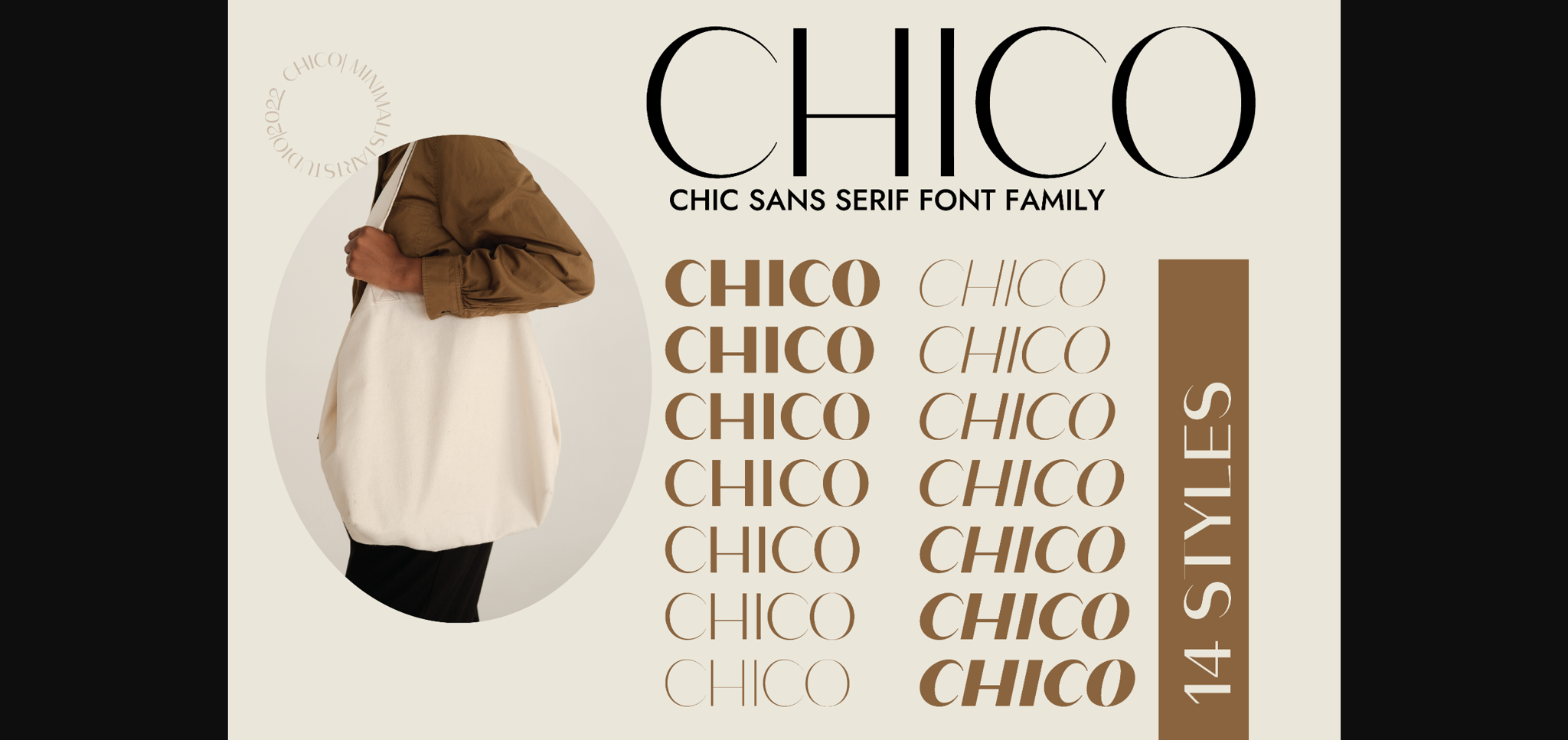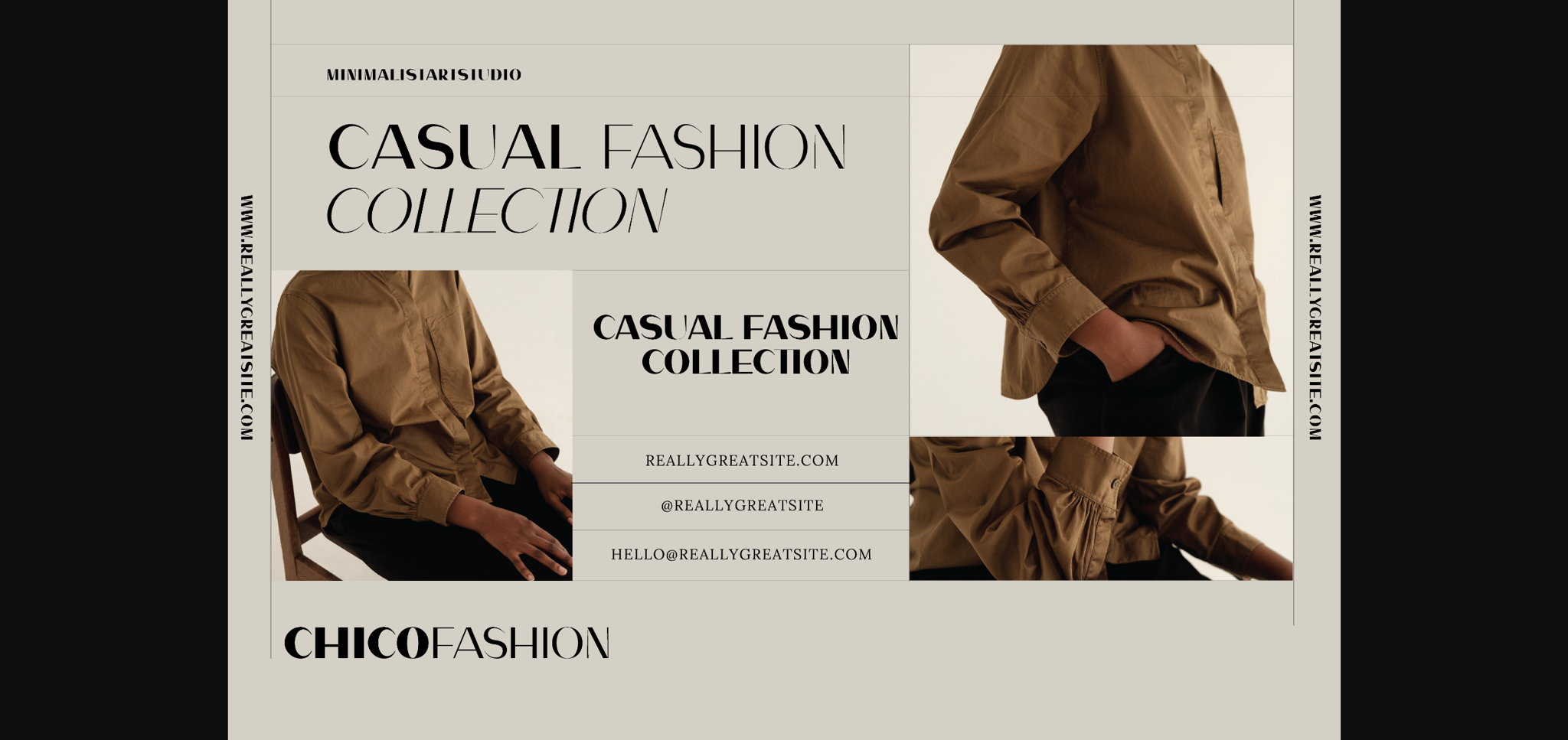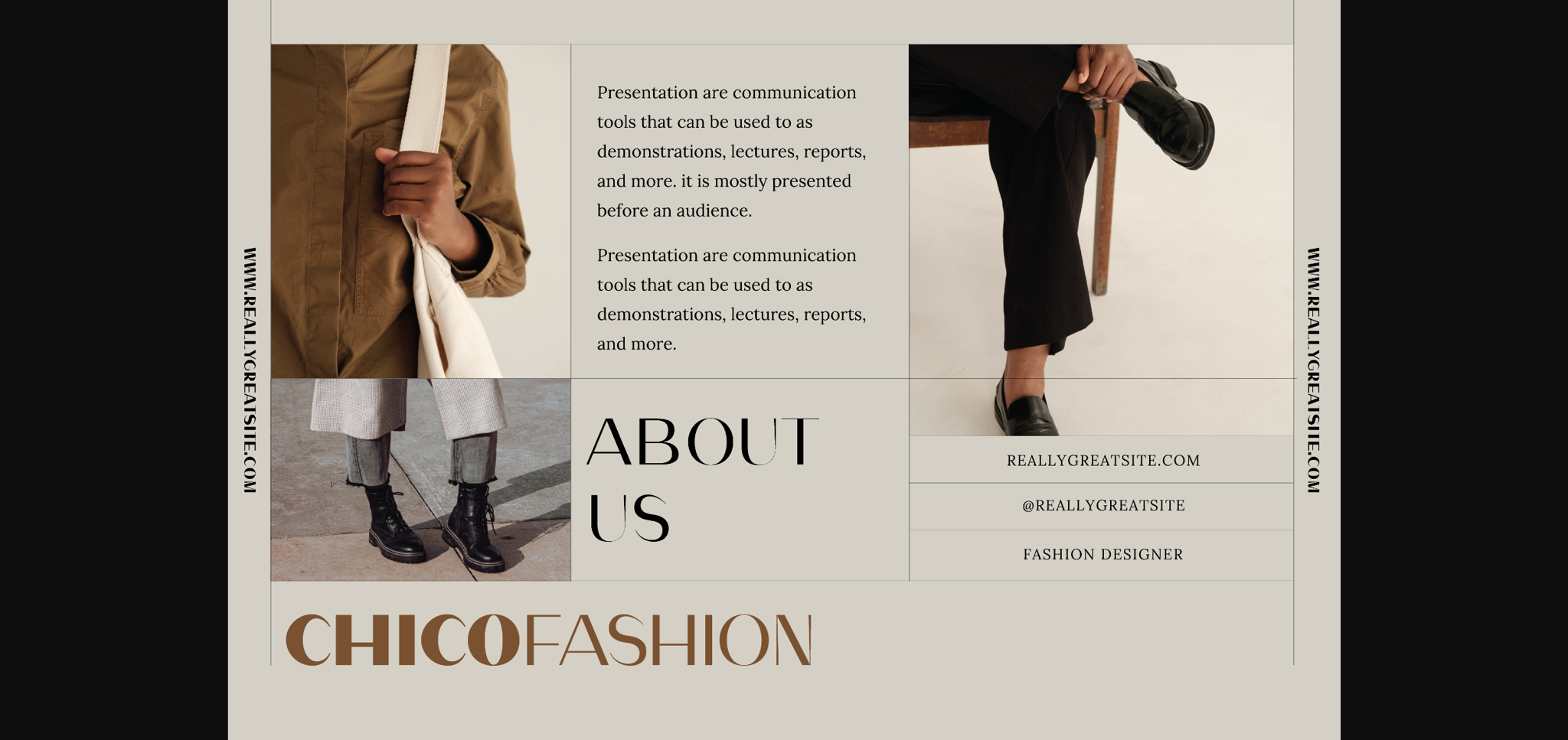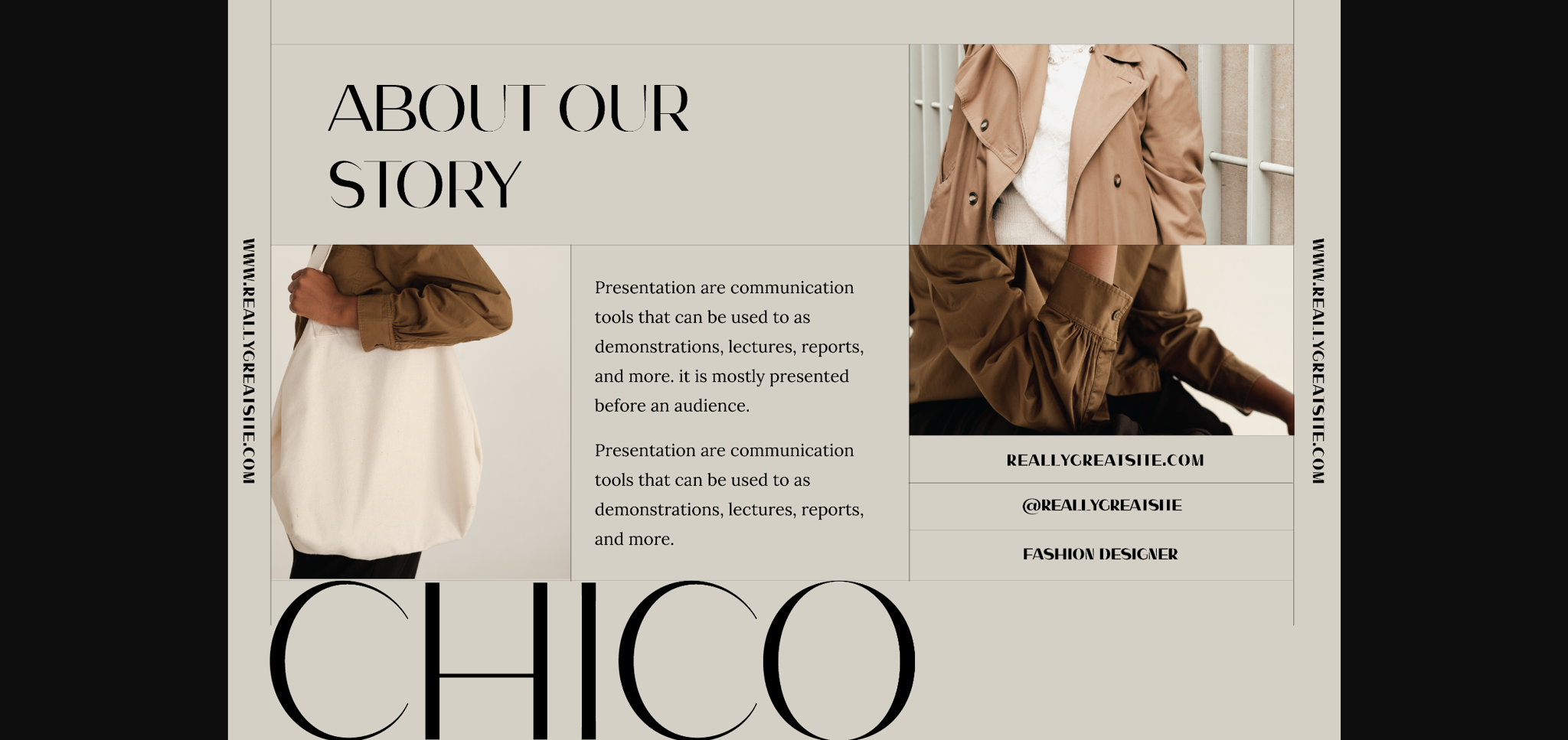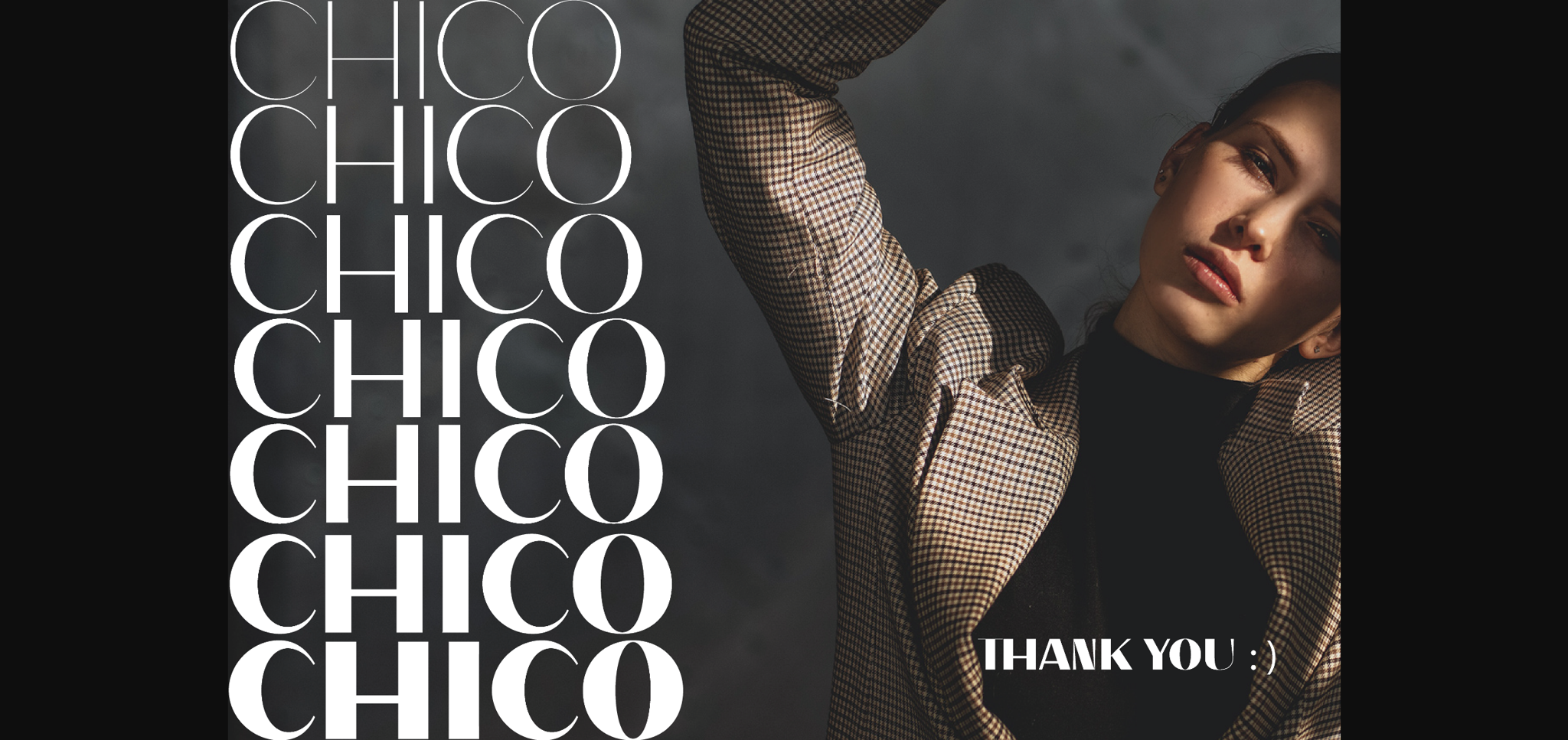
About Chico Font
Chico, as the name suggests is a chic, elegant, and stylish grotesque sans serif font. Whatever the context is, this font family will add great value to your creations. Use it confidently in your creative ideas, and notice how it has the potential to bring each of your projects to the highest level!